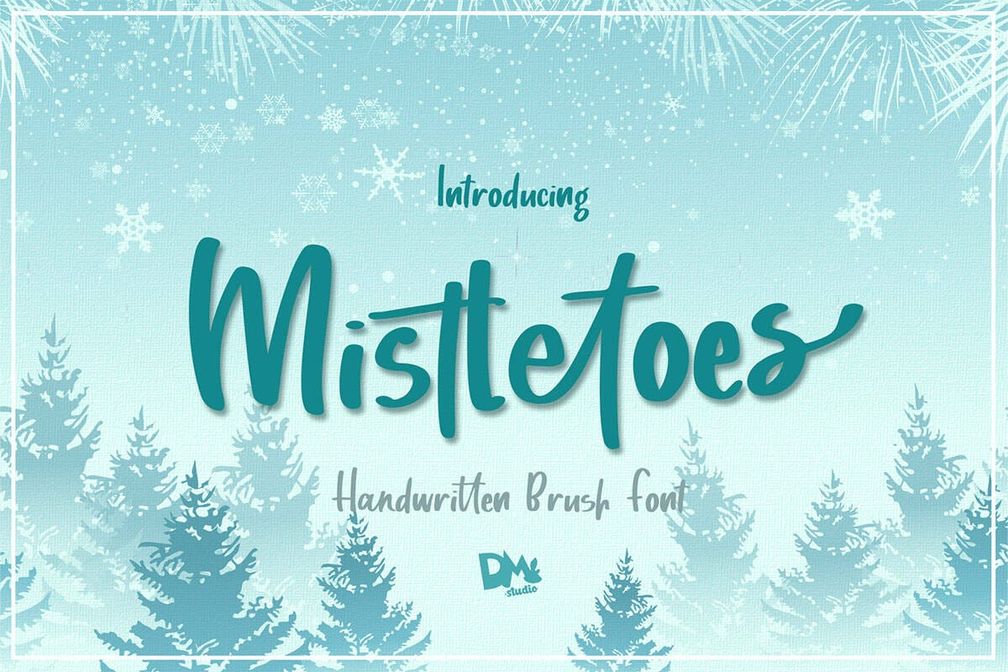
Mistletoes – Handwritten Brush Font
The Mistletoes Handwritten Brush Font is a festive and charming typeface that captures the spirit of the holiday season. With its handcrafted brush strokes and playful design, this font brings a touch of warmth and joy to your Christmas cards, holiday-themed designs, invitations, and other festive projects.
1. Festive and Charming Style: The Mistletoes Font exudes a cheerful and festive aesthetic. Its handcrafted brush strokes and playful design capture the essence of the holiday season, creating a delightful and heartwarming look for your designs.
2. Handwritten Brush Design: The font’s brush strokes emulate the authentic and organic quality of handwritten lettering, adding a personal touch to your designs. It creates a warm and welcoming atmosphere, perfect for spreading holiday cheer.
3. Versatile Application: This font is versatile and well-suited for various design projects that aim to evoke the spirit of the holidays. Use it in Christmas cards, holiday-themed designs, party invitations, social media graphics, and more to add a touch of joy and warmth to your designs.
4. Uppercase and Lowercase Letters: The font includes both uppercase and lowercase letters, providing flexibility and creative freedom in your designs. Mix and match the cases to create visually appealing and harmonious typography.
5. Ligatures and Swashes: The Mistletoes Font offers a range of ligatures and swashes that enhance the visual interest of your text. These special characters create unique connections between letters and decorative flourishes, allowing you to create festive and expressive typography.
6. Punctuation and Symbols: In addition to the alphabet, the Mistletoes Font includes a comprehensive set of punctuation marks, numerals, and common symbols. This ensures consistency and ease of use when incorporating the font into your design projects.
Spread holiday cheer and embrace the festive spirit with the Mistletoes Handwritten Brush Font. Let its handcrafted brush strokes and playful design bring a touch of warmth and joy to your Christmas cards, holiday-themed designs, and invitations. Create designs that capture the magic and happiness of the holiday season with this charming and heartwarming font.